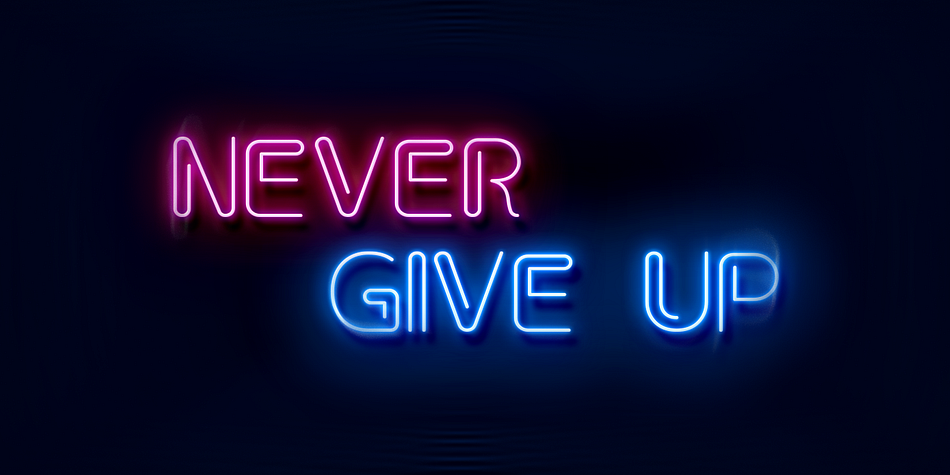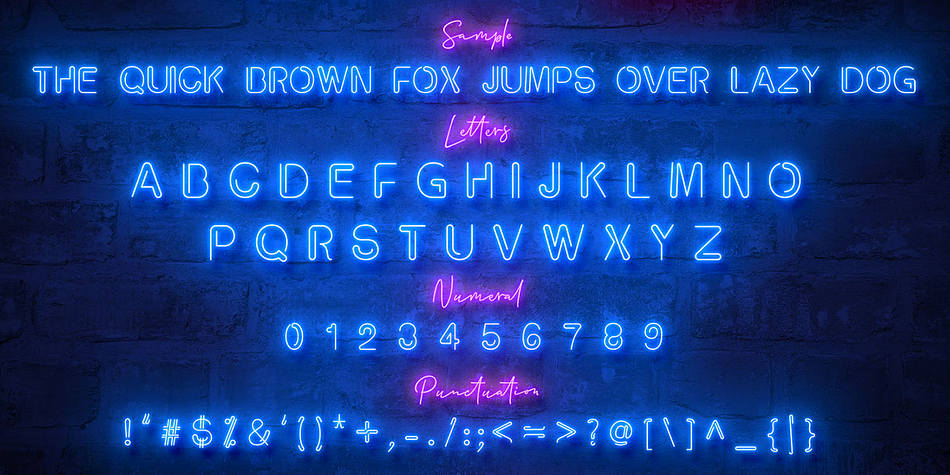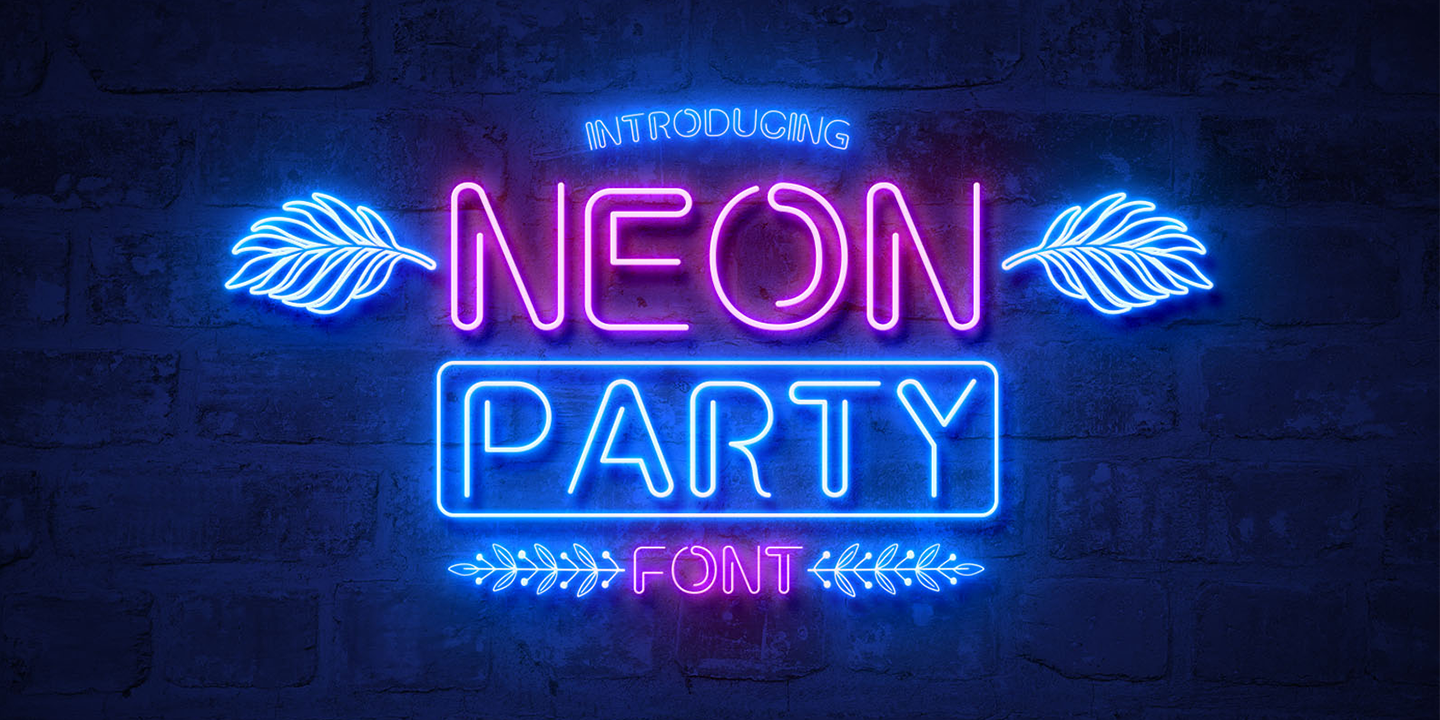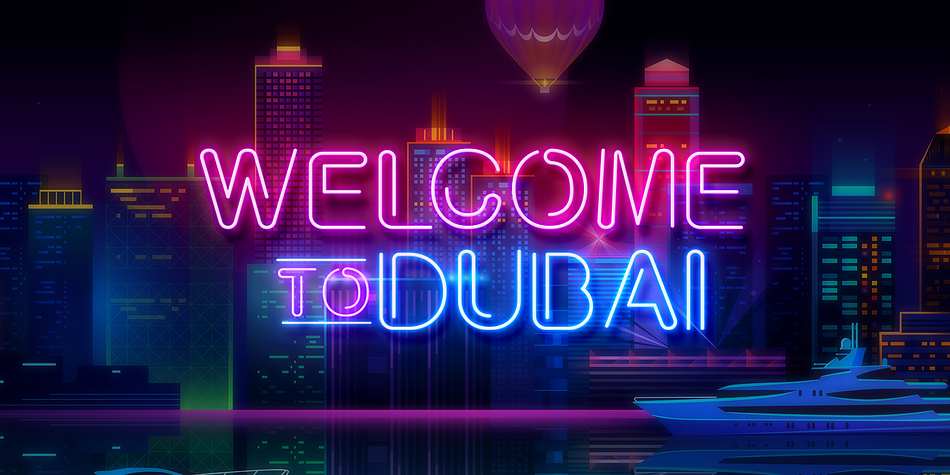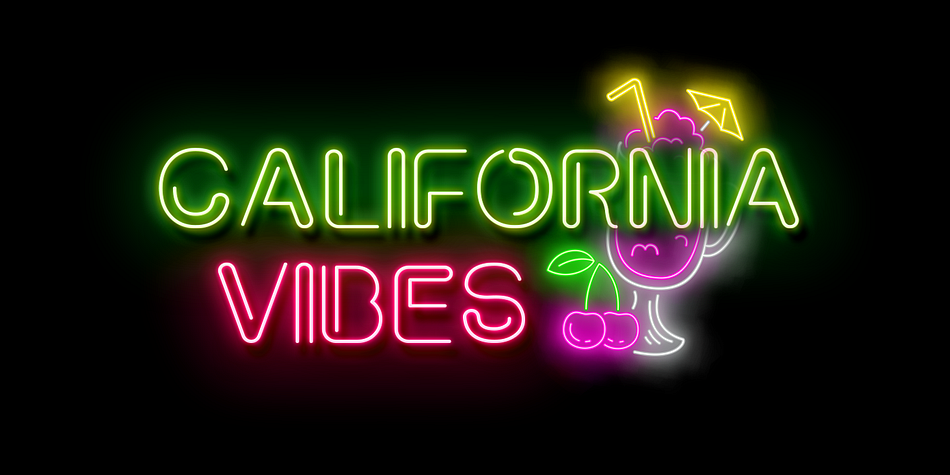
Neon Party
Designed by Mohammed Lamjidi, Neon Party is a display font family published by Beast Designer.
Neon Party is a nostalgic neon sign display font. Carefully handcrafted to become your favorite, this font will elevate your project no matter the topic!